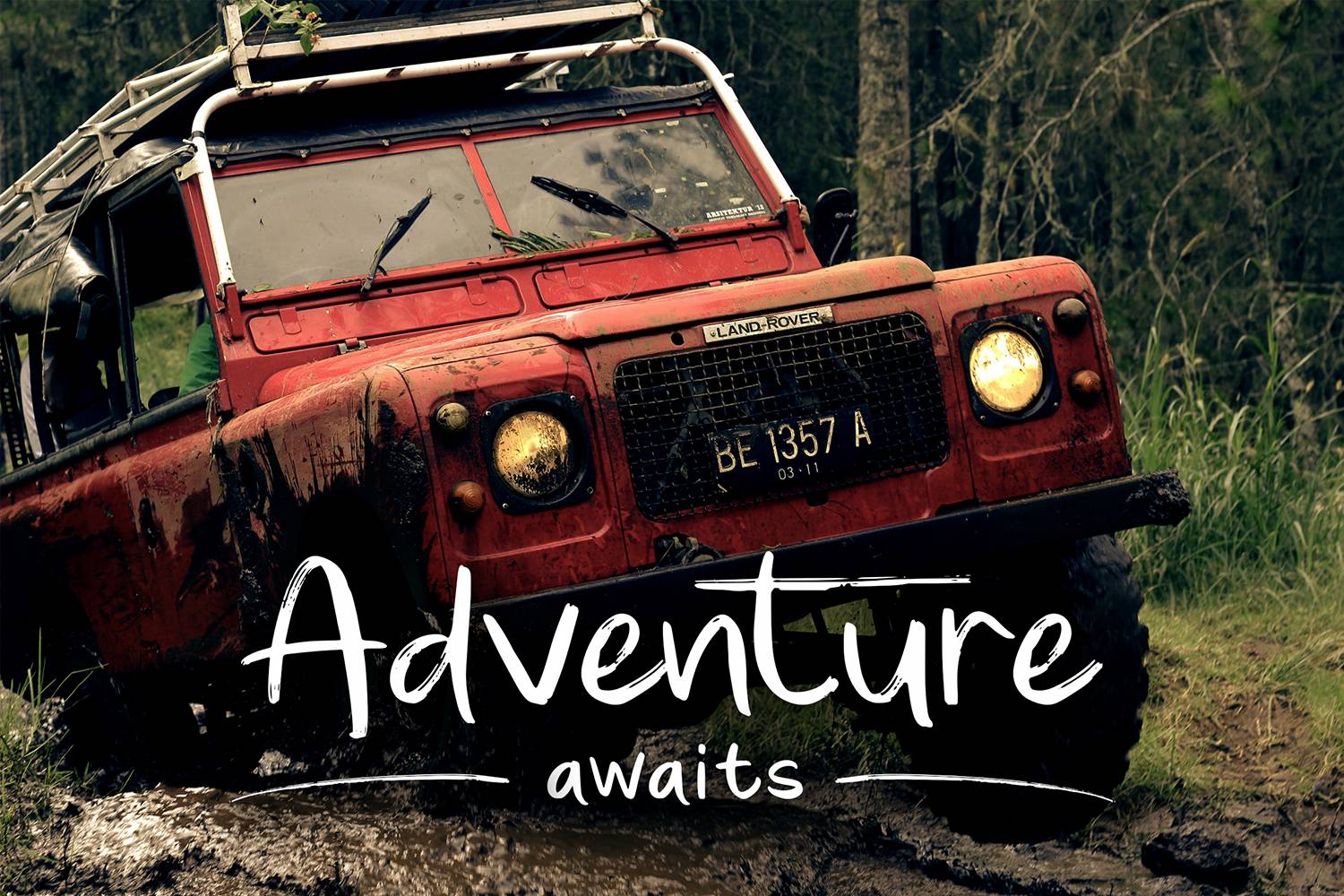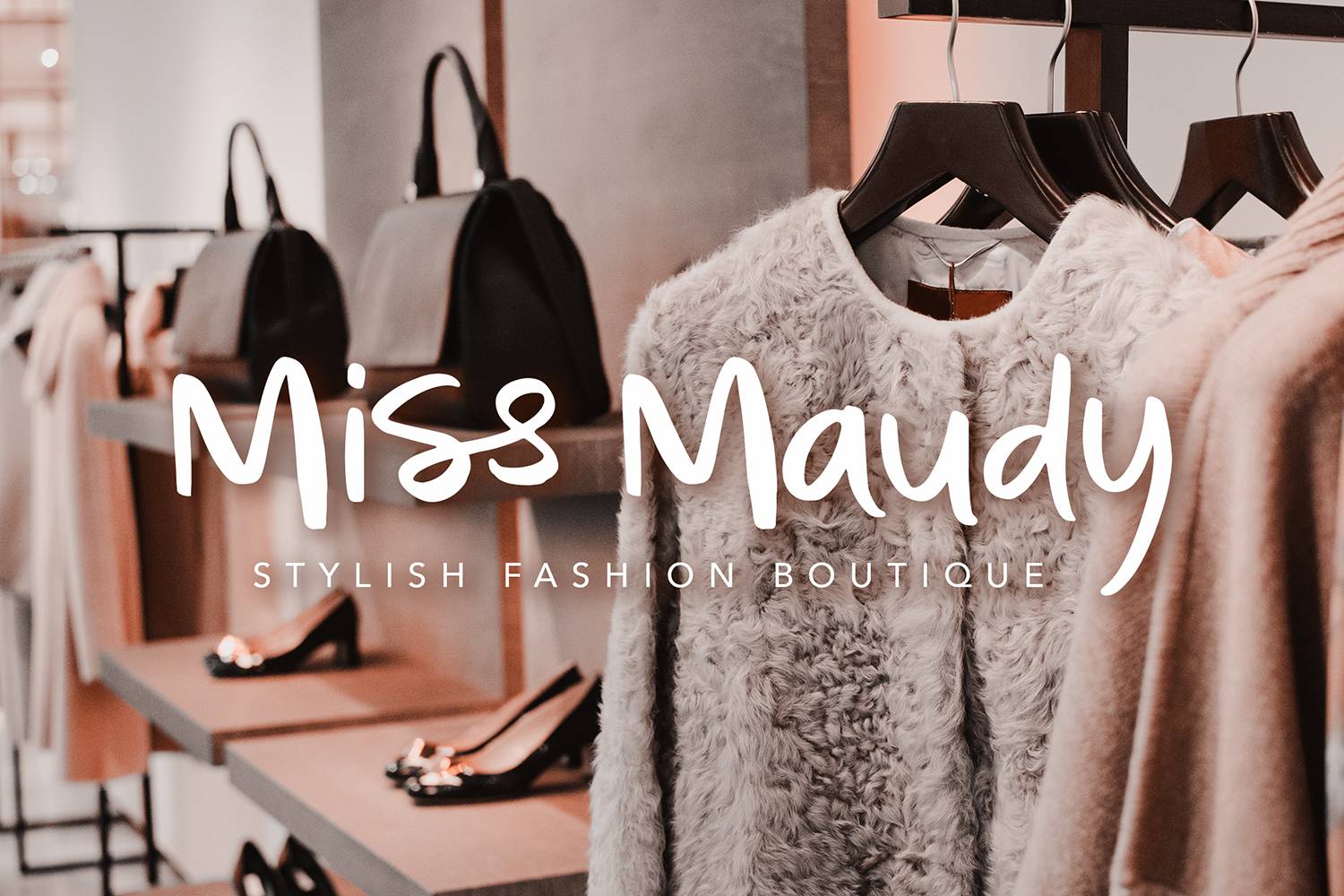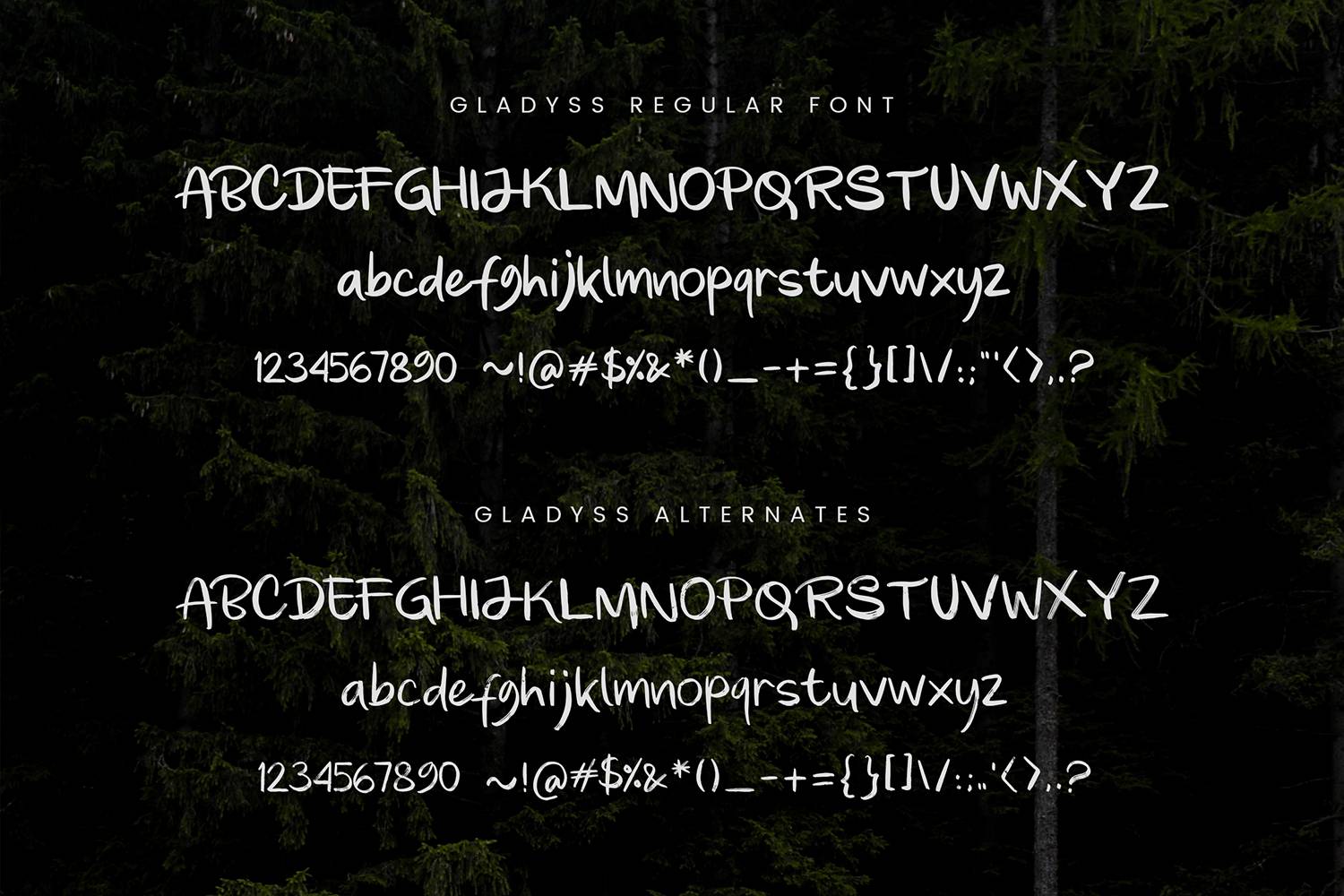
Gladyss is a casual, handwritten sans serif font with a friendly and approachable style. Its rounded, smooth strokes and moderate x-height create a clear yet relaxed feel, making it ideal for informal branding, playful headlines, and personal projects that benefit from a warm, human touch. This font works well in invitations, children’s content, and creative designs where a natural, lively personality is desired.
Gladyss Font
About Gladyss Font
| Font family | Gladyss Font |
| Designer | Ahmad Syarif Afandi (Peterdraw) |